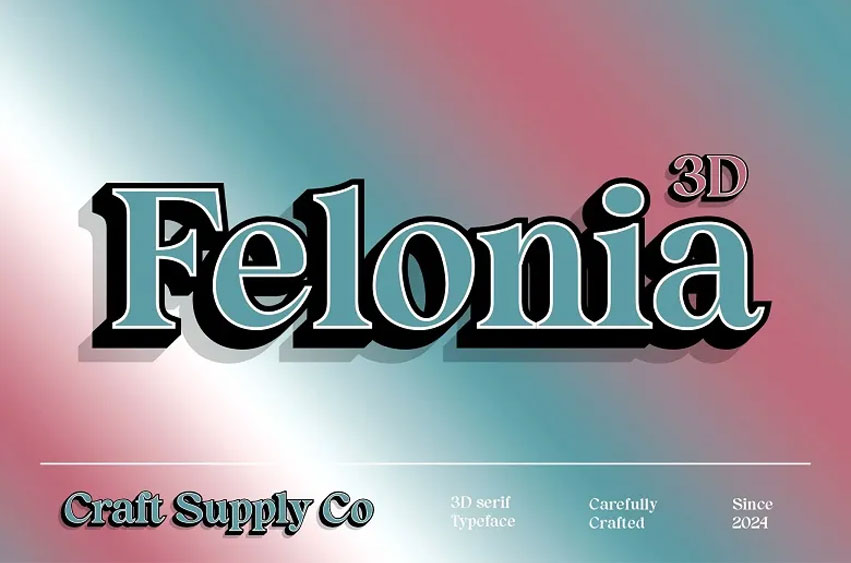
Felonia 3D Font
Felonia 3D Font is a quintessential serif font with a touch of the old-school feel it has been given a 3D treatment. Its design gives a classic touch to your projects, and the aspects of the modern dimensionality helps to make your project interesting and eye-catching.
No matter if it is a poster, a logo, or a creative project, Felonia 3D brings the feel of sophistication into a design, and you are confident that your creation is unique and beautiful.